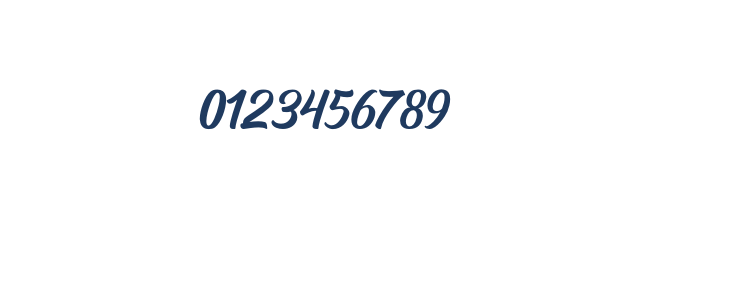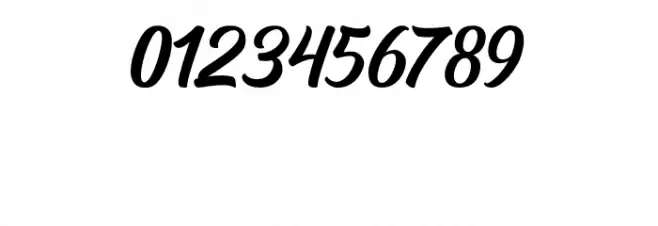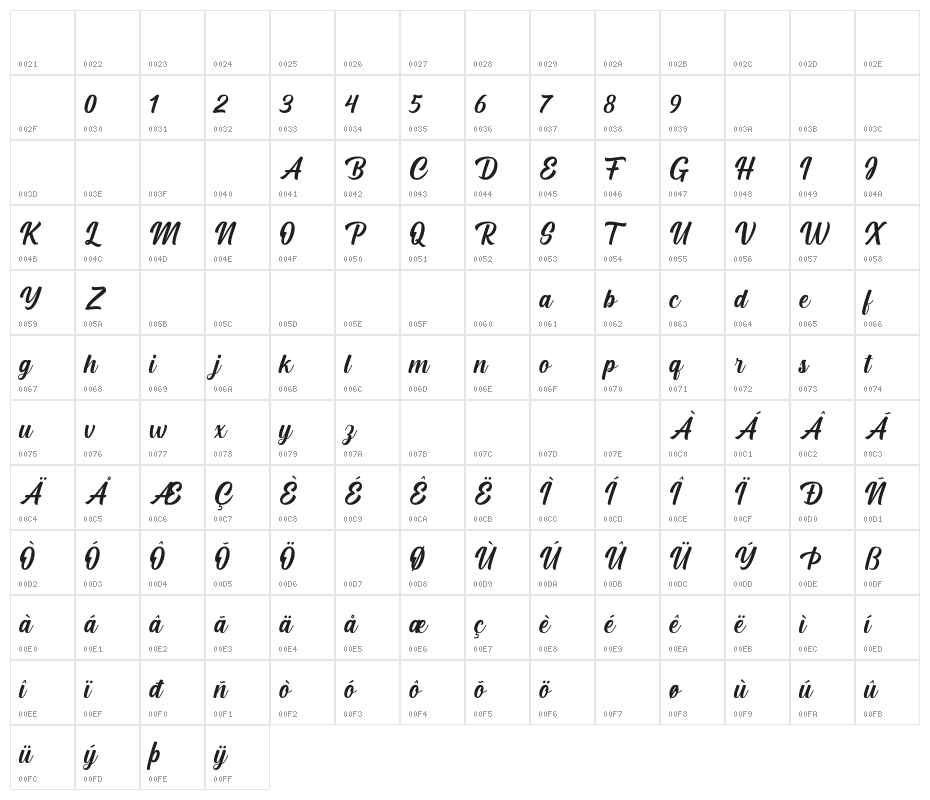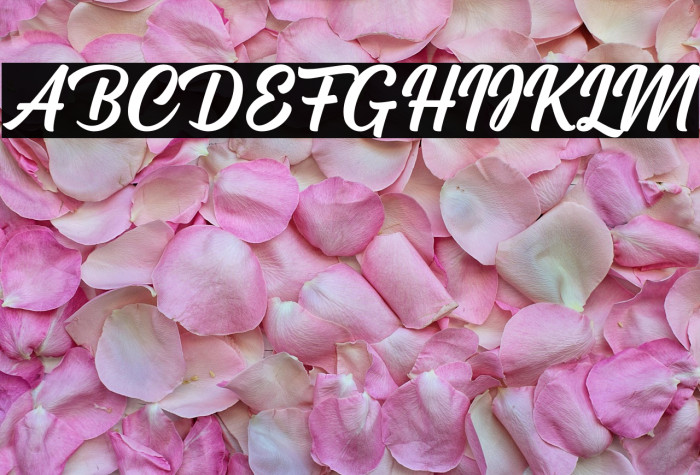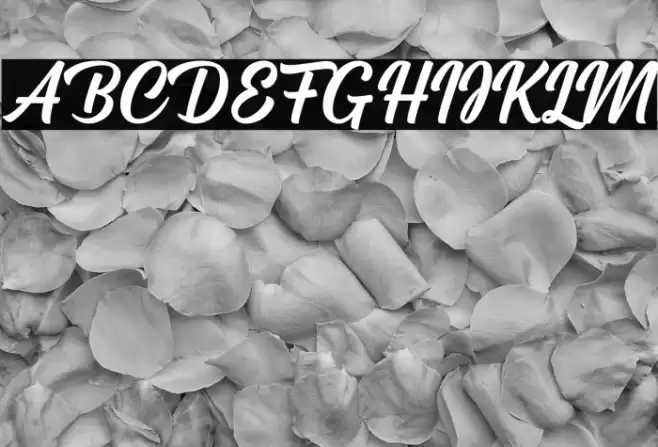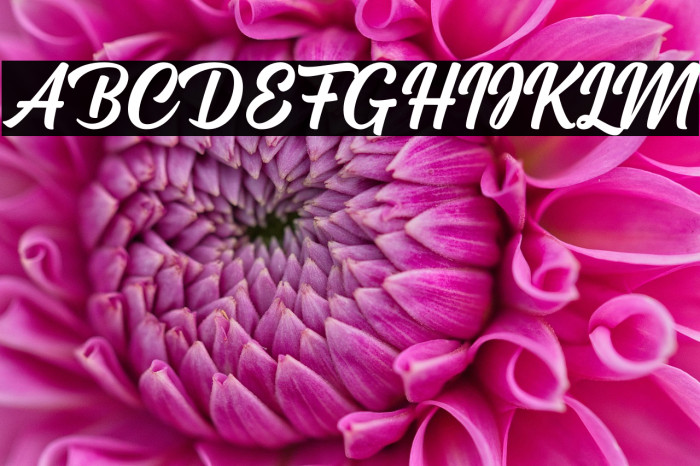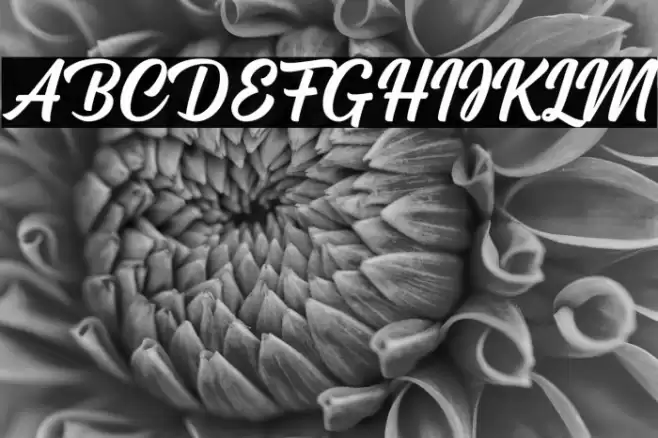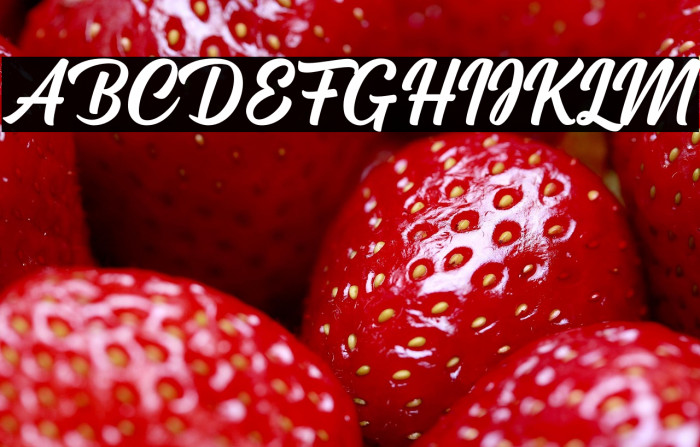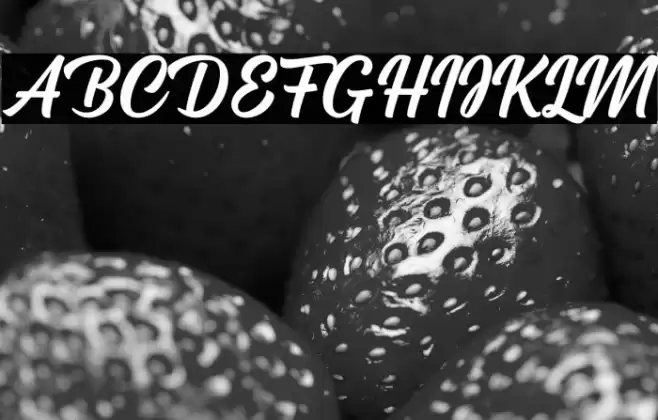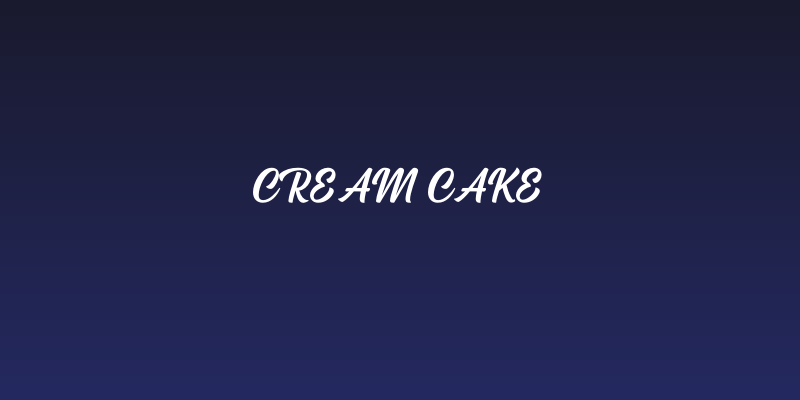
Cream Cake Font
Cream Cake Description
This font features a flowing, cursive style with a playful and elegant appearance. The characters are connected in a smooth, continuous manner, giving it a handwritten feel. The uppercase letters are bold and prominent, while the lowercase letters maintain a consistent flow. The numbers are styled to match the cursive theme, adding to the overall cohesiveness. This font is ideal for projects that require a personal touch, such as invitations, greeting cards, or branding materials. Its decorative nature makes it stand out, while the consistent stroke width ensures readability.